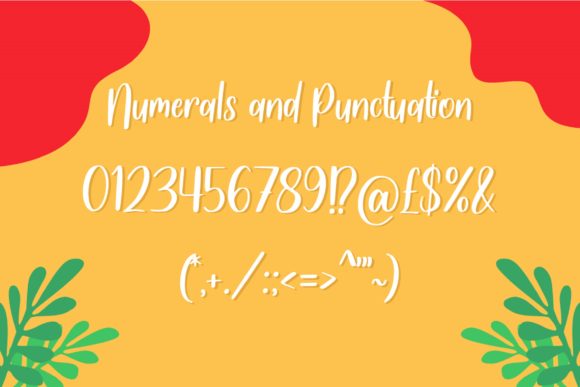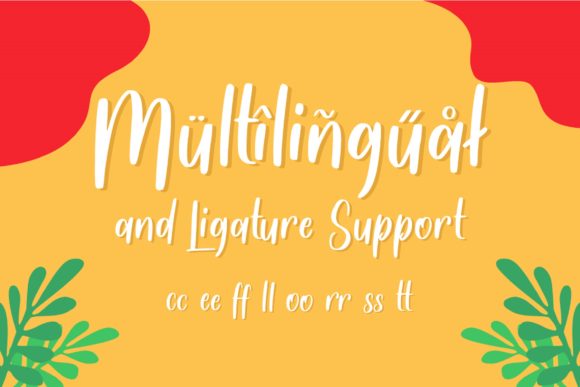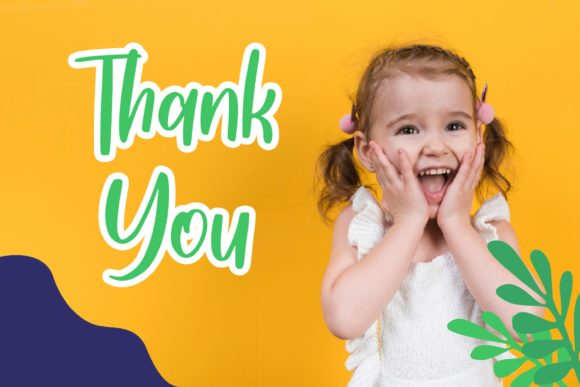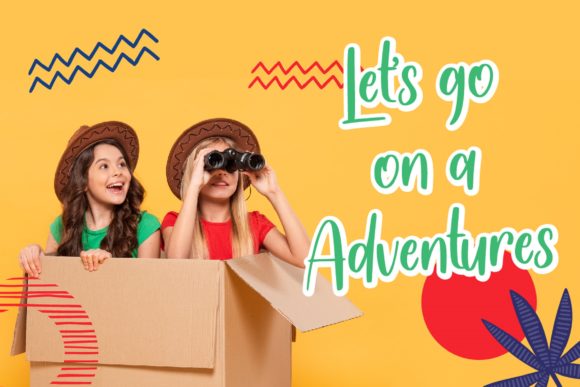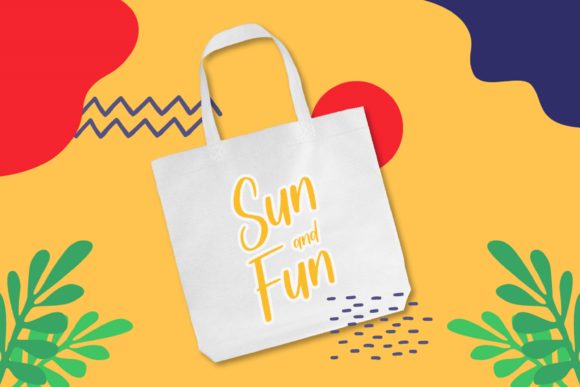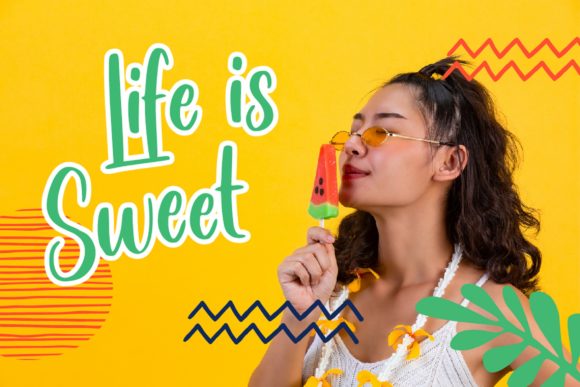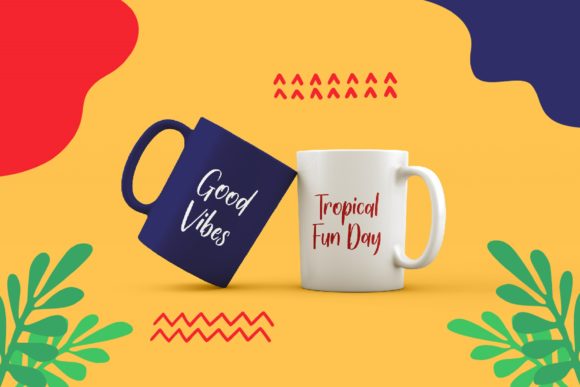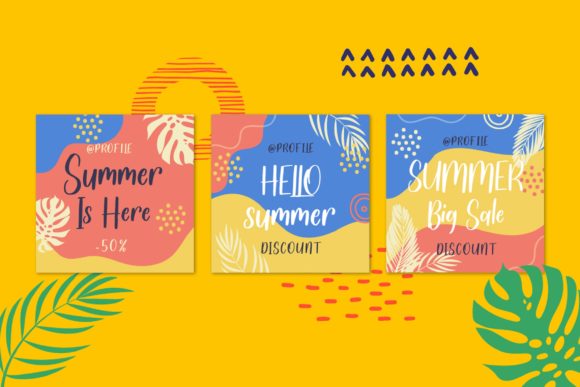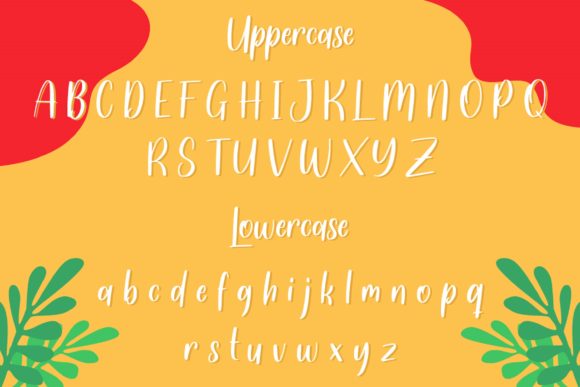
Tropicola Font
About Tropicola Font
Introducing “Tropicola” – a cheerful handwritten font that radiates an adventurous and authentic feel. With its playful and vibrant style, this font is the perfect choice for adding a touch of excitement to your next design idea.
Tropicola’s handcrafted letterforms evoke a sense of joy and spontaneity. Its playful curves and unique character variations give it a lively and adventurous vibe. Whether you’re working on travel-related designs, branding materials, social media posts, or any other creative project, Tropicola will infuse your designs with a sense of fun and authenticity.
This font’s versatility allows it to adapt to various design concepts. Its cheerful nature makes it particularly suitable for projects that aim to evoke a sense of adventure, wanderlust, or a carefree spirit. Add Tropicola to your creative ideas, and notice how it adds a vibrant and authentic feel to your designs.
Embrace the cheerfulness and authenticity of Tropicola, and watch as it brings your next design idea to life. Let it be the font that adds an adventurous and lively touch to your creative projects. With Tropicola, your designs will exude a sense of excitement and joy that captivates your audience.